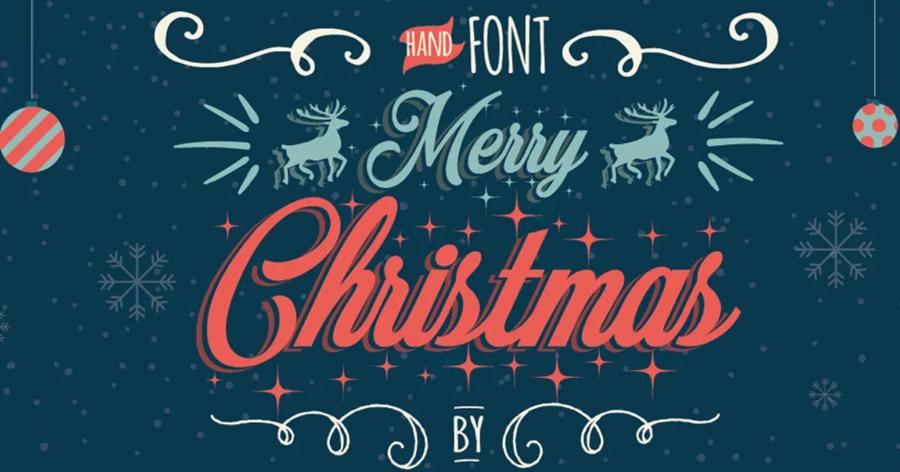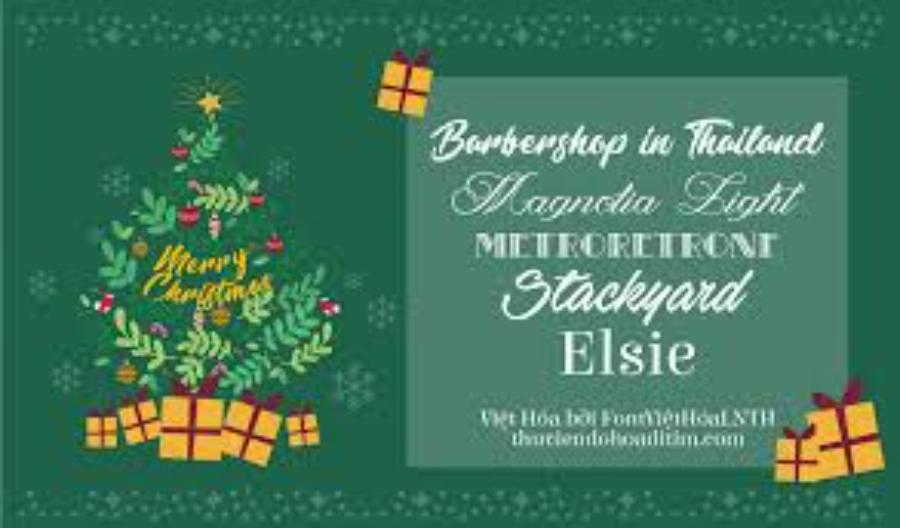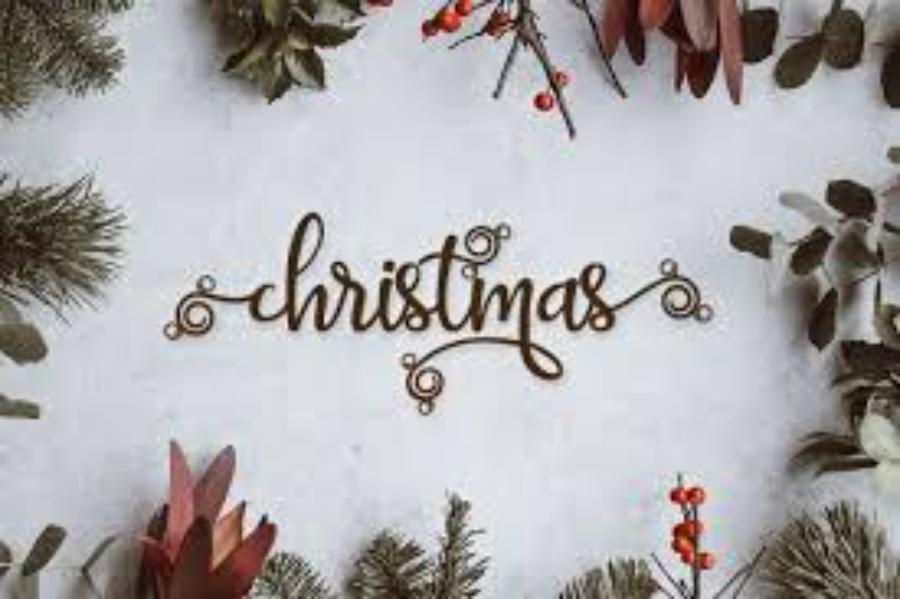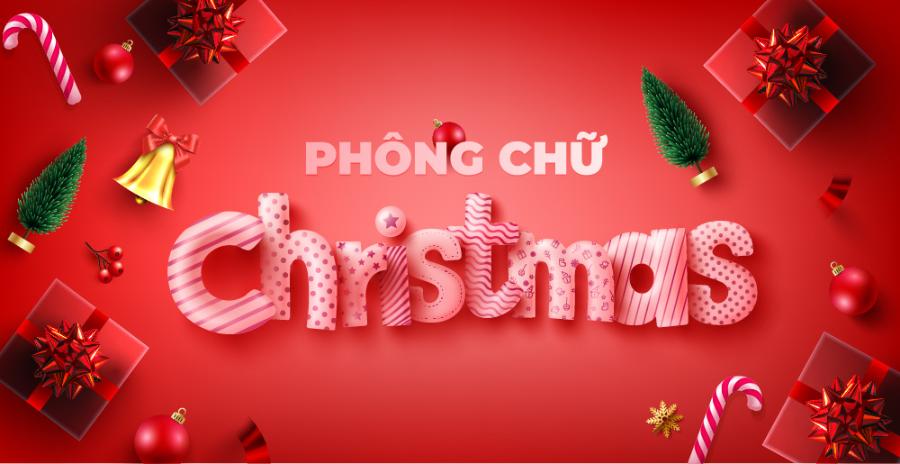
Extremely Artistic Vietnamese Christmas Fonts: Breathe Christmas Soul Into Your Designs
Christmas is not only a time of sparkling lights and cheerful songs, but also an opportunity to express creativity in design. Choosing the right Vietnamese font will help designs bring the Christmas spirit more artistic and impressive.
Christmas, the season of miracles, warmth and sharing, is coming. Not only the surrounding space is splendidly decorated, but even the designs and media publications need to be imbued with the breath of Christmas. One of the important factors that create the difference and attraction is the choice of font. In this article, Sadesign will take you to explore the world of extremely artistic Vietnamese Christmas fonts, helping you breathe the Christmas atmosphere into every design project.
1. Why Are Vietnamese Fonts Important in Christmas Design?
Before going into the details of the fonts, let's clarify the importance of Vietnamese fonts in the context of Christmas design:
Convey the complete message: Fonts are not just characters, but also carry their own emotions and style. A suitable font will help convey the Christmas message in the most complete and effective way, from warmth and joy to solemnity and classicism.
Increase aesthetics and uniqueness: Fonts designed specifically for the Christmas season often have typical motifs and lines such as pine trees, snowflakes, bells, or warm handwriting styles. Using them will help your design become unique, impressive and more Christmas-like.
Close and easy to read for Vietnamese people: Vietnamese fonts ensure full display of Vietnamese accents, helping readers easily receive information without any obstacles. This is especially important in publications aimed at Vietnamese audiences.
Show professionalism and investment: Choosing and using beautiful Vietnamese fonts shows your professionalism and careful investment in every detail of the design.
Create an emotional connection: A Christmas-inspired font can evoke fond memories, create a sense of warmth, excitement, and emotional connection with the viewer.
2. Classify Extremely Artistic Vietnamese Christmas Fonts
To help you choose easily, we can classify Vietnamese Christmas fonts into the following main groups:
2.1. Script Font (Handwritten) Brings Warm Breath
This is the most popular font group in Christmas designs because of its soft, graceful beauty and the warm, intimate feeling it brings.
Characteristics: The strokes are often seamlessly connected, with varying thicknesses, creating a natural handwriting feel. Some fonts also add subtle decorative details such as stylized hooks and soft curves.
Application: Suitable for invitations, greetings, letterheads, signatures, vintage, rustic or handmade designs.
For example:
Christmas Wish: An elegant script font with graceful curves, creating a light and delicate feel.
Winter Calligraphy: Bold, strong handwritten font that still retains warmth and intimacy.
Holiday Script: A playful, youthful font with rounded strokes, suitable for dynamic designs.
Snowflake Script: Script font decorated with cute little snowflake motifs, adding to the Christmas atmosphere.
Cozy Winter: A soft, rounded font that evokes a feeling of warmth and relaxation.
2.2. Classic and Formal Serif Fonts
Serif fonts bring a classic, formal and polite beauty, often used in traditional Christmas designs.
Characteristics: Letters have small strokes at the ends of the main strokes (feet). Serif fonts tend to create a sense of stability, trustworthiness, and formality.
Application: Suitable for large titles, formal texts, high-end invitations, classic style advertising banners.
For example:
Christmas Carol: An elegant serif font with delicate strokes, reminiscent of Christmas carols.
Noel Classic: Bold, strong serif font that feels solid and traditional.
Winterfell: A stylized serif font with unique strokes, giving it a winter fairytale feel.
Santa's Sleigh: A serif font designed with gentle curves, reminiscent of Santa's sleigh.
Evergreen: A simple yet elegant serif font that feels as fresh and lasting as a Christmas tree.
2.3. Modern and Minimalist Sans-Serif Fonts
The sans-serif font family offers a modern, minimalist and easy-to-read look, suitable for contemporary Christmas designs.
Characteristics: The letters have no serifs, the lines are clear and coherent. Sans-serif fonts often create a youthful, dynamic and modern feeling.
Application: Suitable for website designs, mobile applications, online advertising banners, minimalist designs.
For example:
Snowfall Sans: A simple sans-serif font designed with gently rounded corners, creating a soft feeling like falling snow.
Winter Modern: A strong, clean sans-serif font, suitable for headlines and short paragraphs.